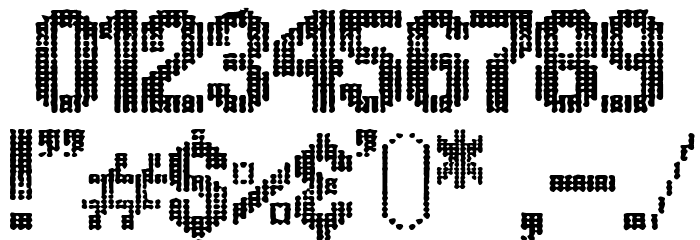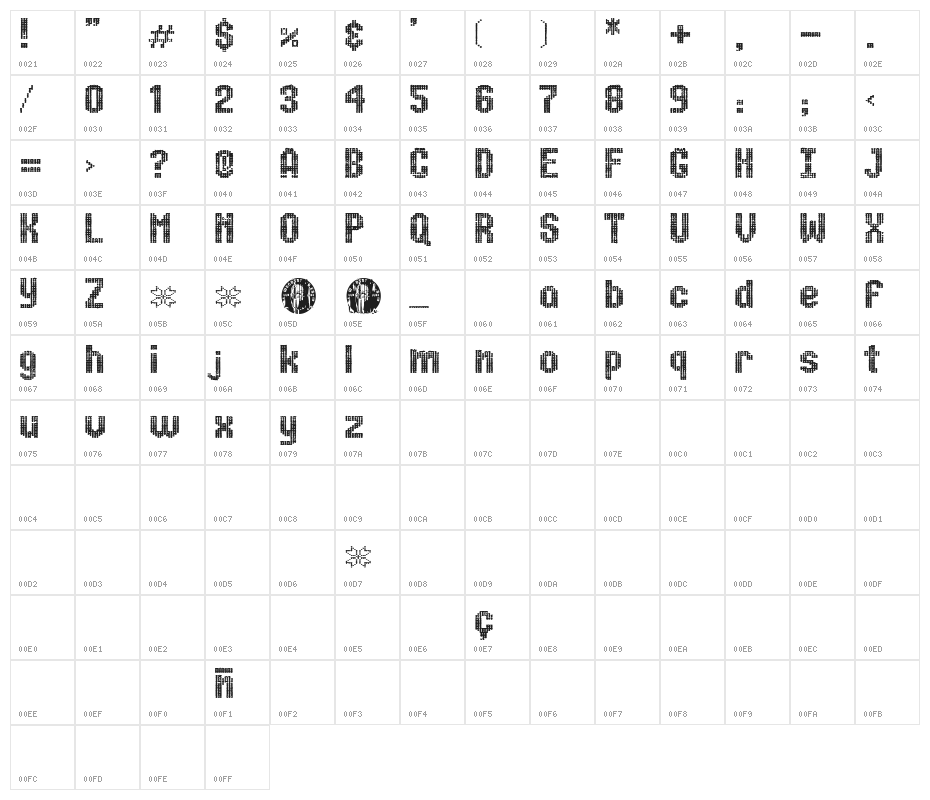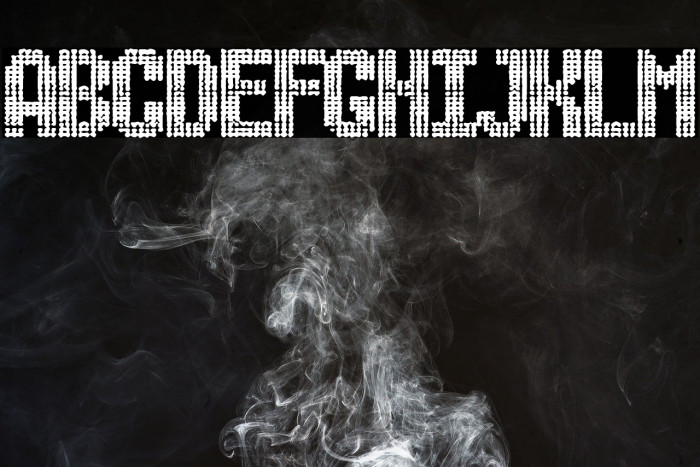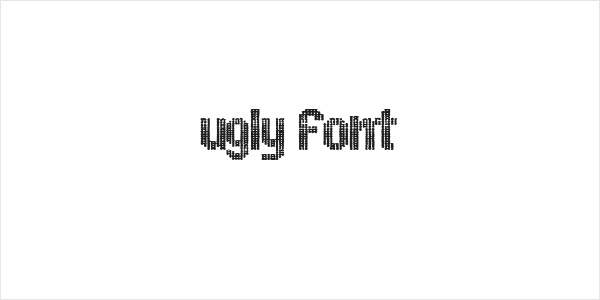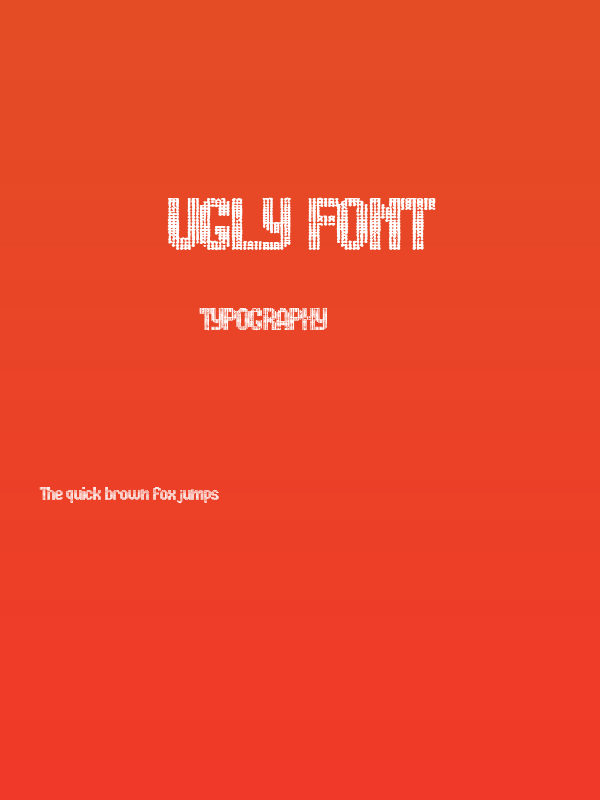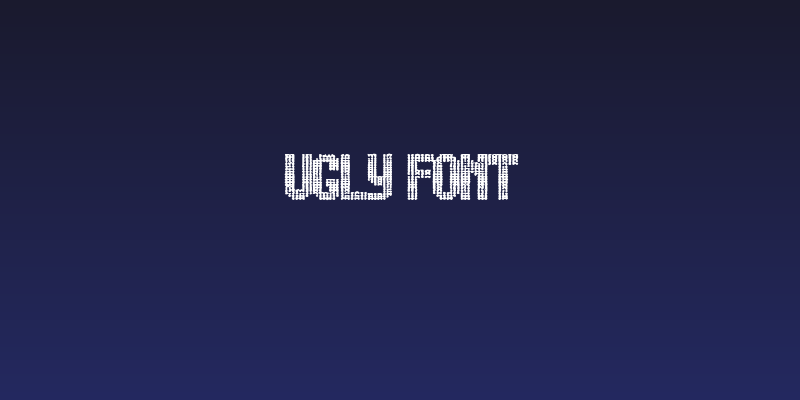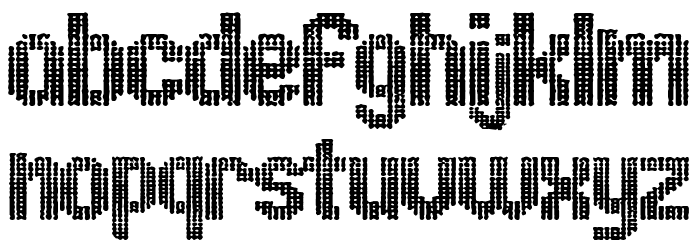
ugly font Font
ugly font Description
This font features a unique and playful design composed of small, pixel-like dots forming each character. The letters have a bold and blocky appearance, with a consistent height across both uppercase and lowercase characters. The numbers and special characters maintain the same dotted style, adding to the overall cohesive look. This font stands out with its decorative and digital aesthetic, reminiscent of retro computer graphics or pixel art. The spacing between characters is relatively tight, which enhances the compact and dense feel of the text. The font's style is distinctly decorative, making it suitable for projects that require a fun and unconventional typeface.
| Proposed Projects | Ideal for digital art, retro-themed designs, video game graphics, and creative posters. |